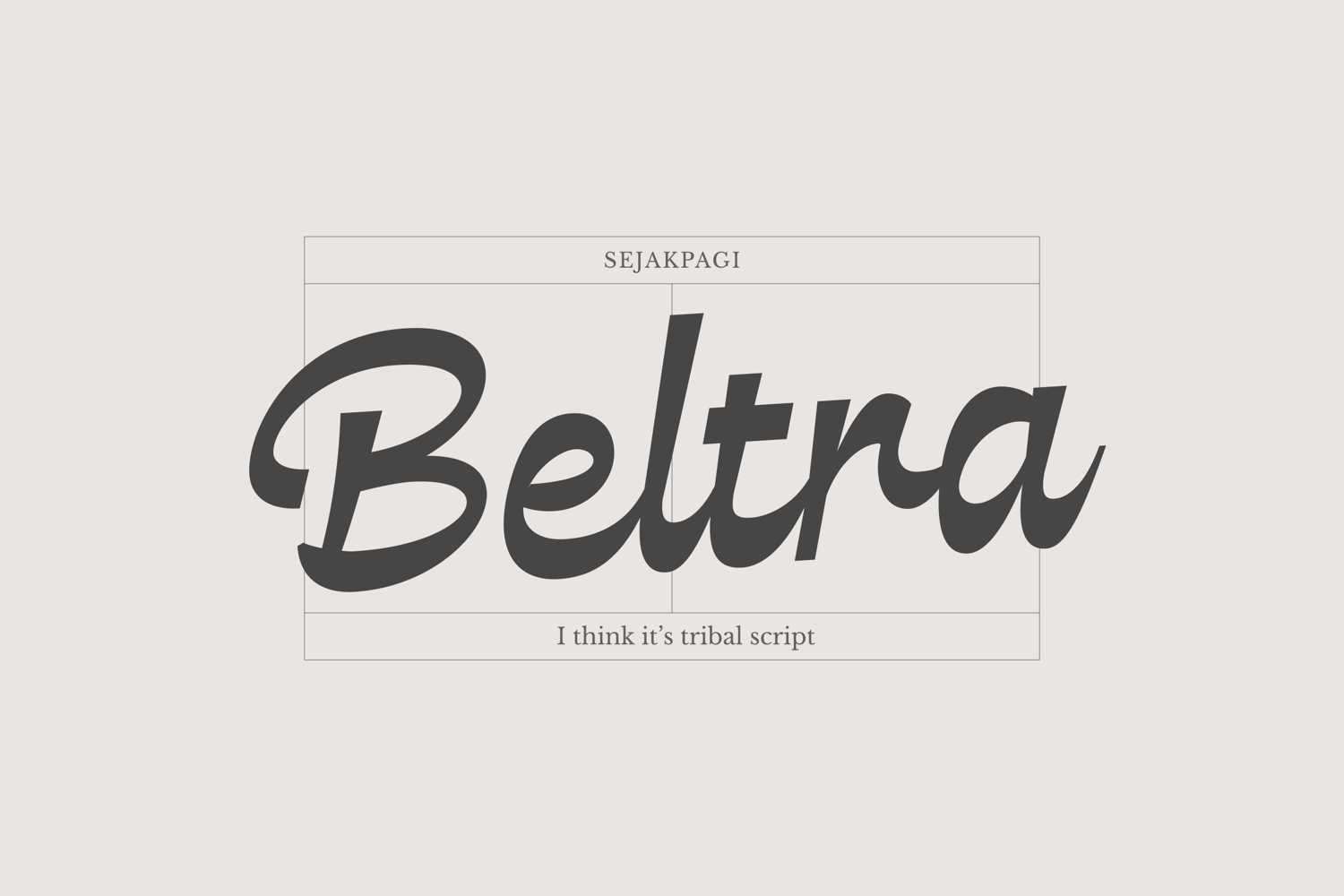
Beltra - I think it's tribal script
Beltra
Beltra is a handwritten typeface that combines modern elegance with natural handwritten charm. Designed with smooth flowing strokes, stylish curves, and confident letterforms, this font creates a warm and authentic look that stands out across a wide range of creative projects. Its balanced character design offers both personality and readability, making it ideal for logos, branding, packaging, product labels, social media content, wedding invitations, fashion editorials, and signature-style designs. Inspired by contemporary hand lettering, Beltra Script delivers a sophisticated yet friendly aesthetic that helps brands and creatives create memorable visual identities. Complete with uppercase and lowercase characters, numbers, punctuation, multilingual support, and beautiful stylistic details, Beltra Script is a versatile typeface that brings a handcrafted touch and premium feel to both print and digital designs.